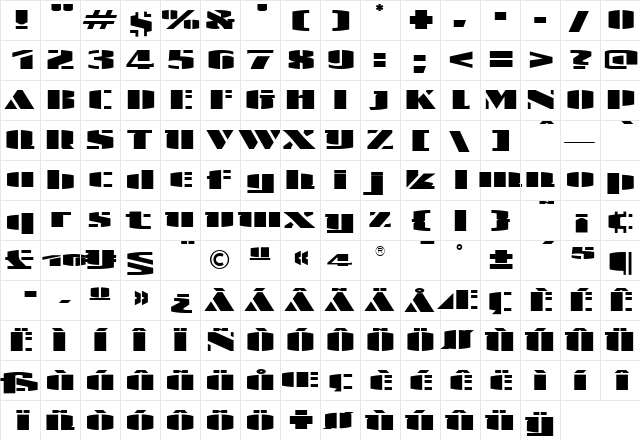
TFGuestcheckStencil Regular
Design Context for TFGuestcheckStencil Typeface
TFGuestcheckStencil borrows the utilitarian aesthetic of stencil lettering, with its characteristic cutaways and no-frills construction lending an industrial edge.
Ideal for industrial branding, streetwear, military-adjacent aesthetics, and urban signage projects.
Pro Tip: Pair TFGuestcheckStencil with raw, utilitarian design elements — exposed concrete textures, flat colour, and minimal ornamentation suit it well.